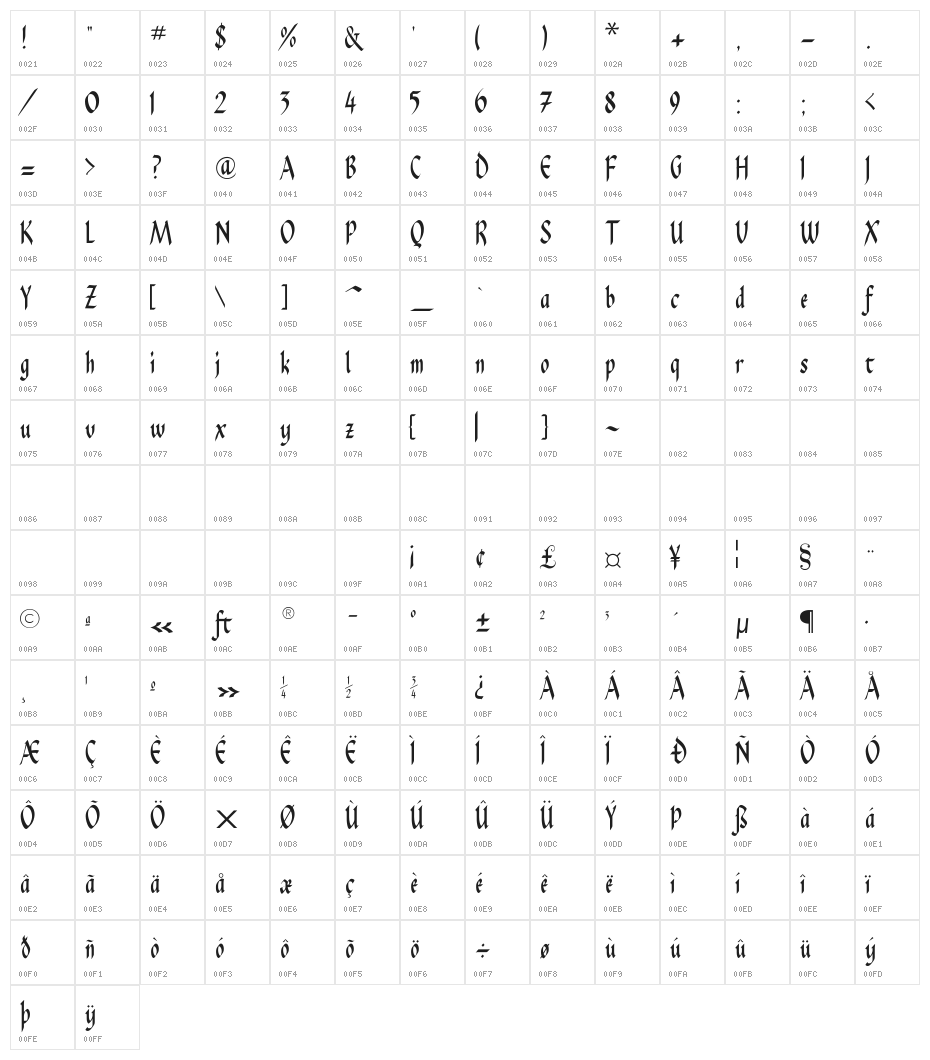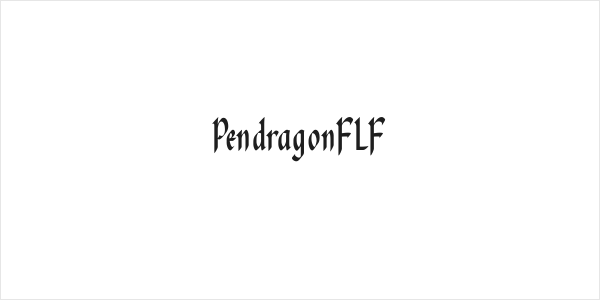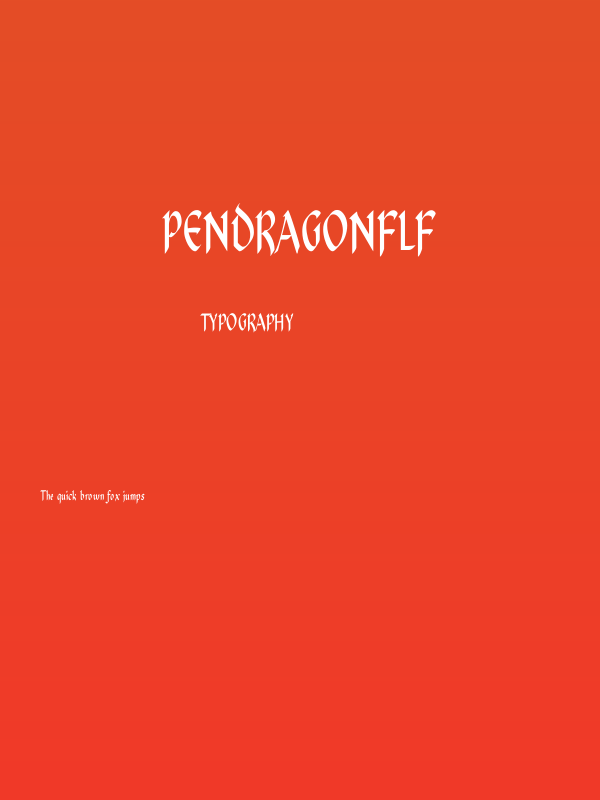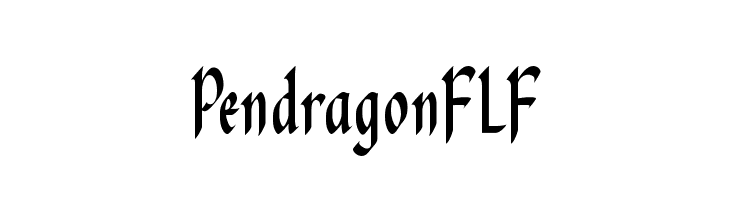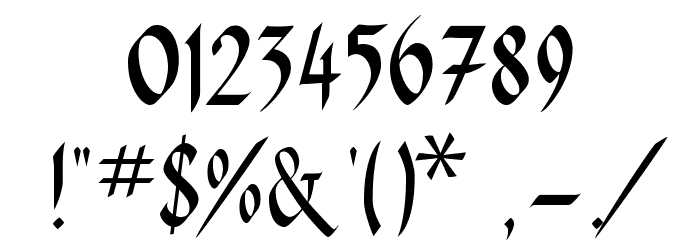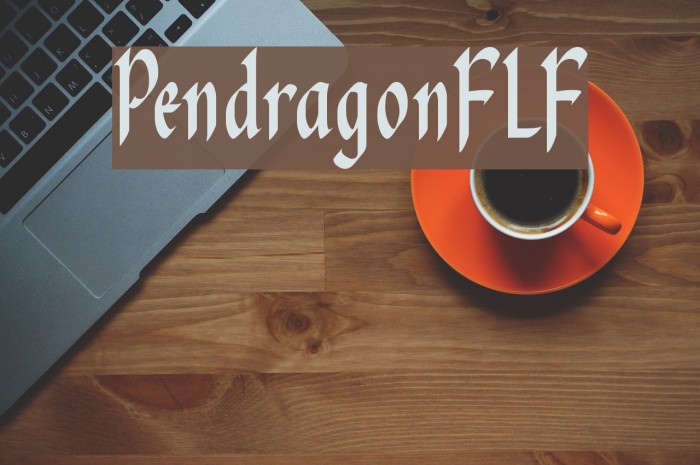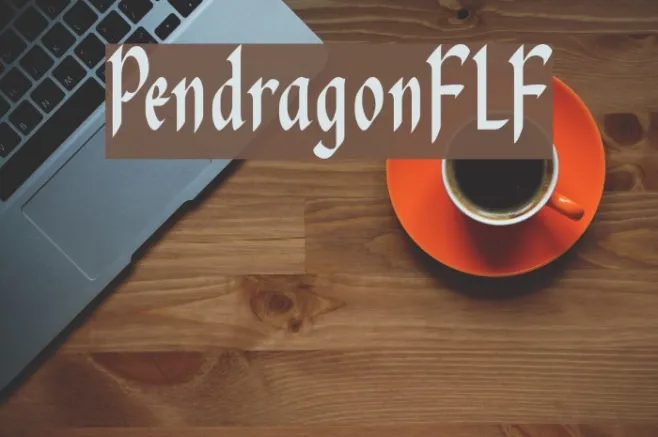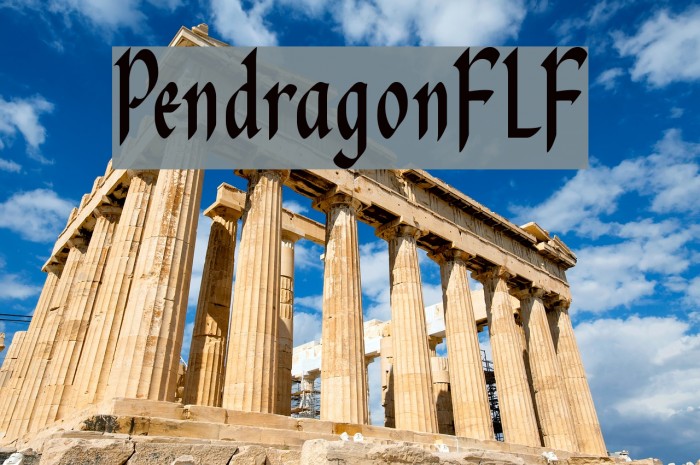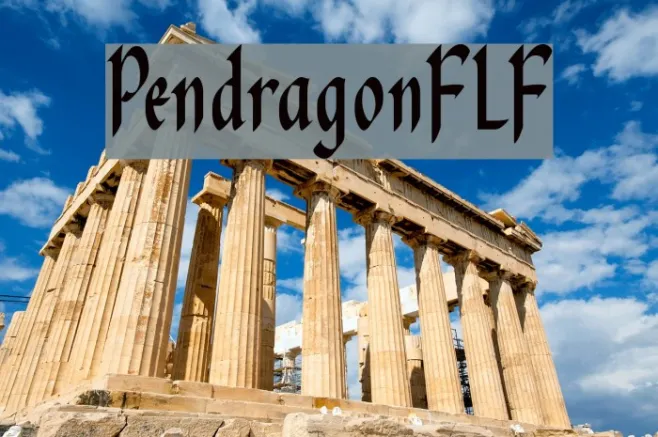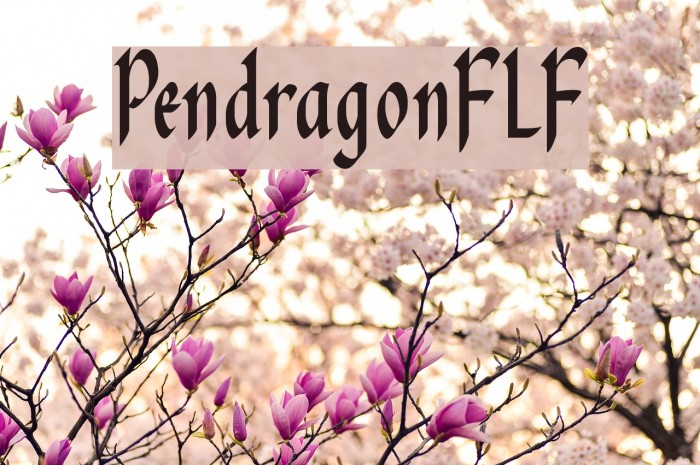
PendragonFLF Font
PendragonFLF Description
This font features a distinct medieval and gothic style, characterized by sharp, angular lines and a dramatic flair. The uppercase letters are tall and narrow, with pointed serifs that give them a striking appearance. The lowercase letters maintain a consistent style, with unique curves and angles that enhance the font's historical aesthetic. Numbers and special characters are designed to match the overall theme, providing a cohesive look across all characters. The font's intricate design makes it ideal for projects that require a touch of elegance and antiquity.
| Use Case | Headlines, Logos, Decorative text |
| Proposed Projects | Ideal for fantasy-themed designs, historical documents, book covers, and decorative headings. |